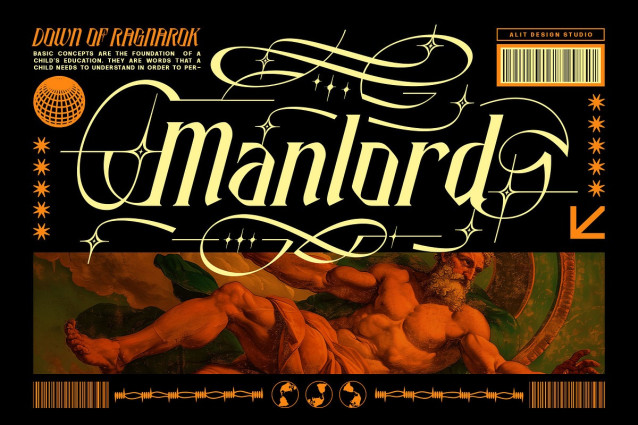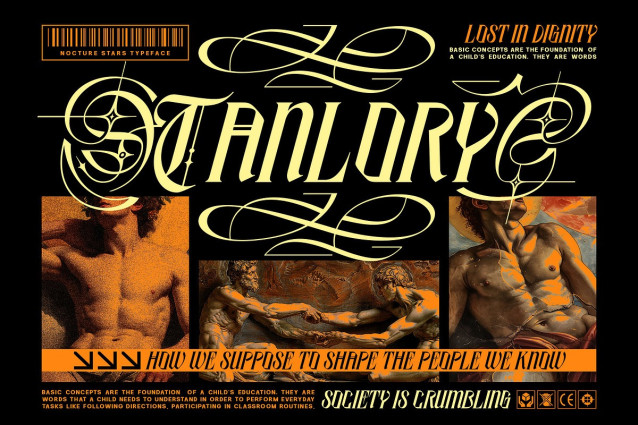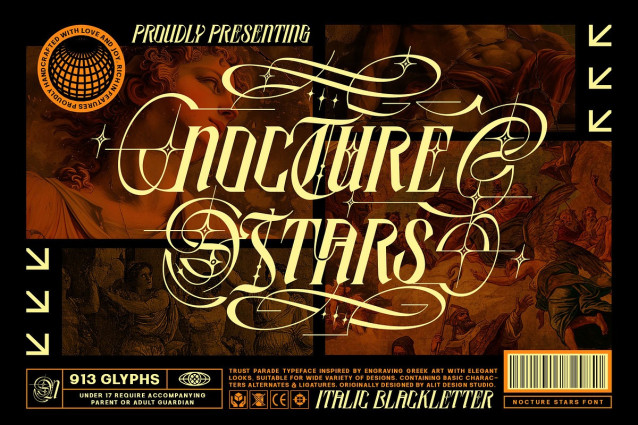
Nocture Stars Font
Nocture Stars Font a typeface that defies the boundaries of time. Inspired by the intricate precision of engraving Greek art and the dark romance of the medieval era, this font is a bold fusion of history and contemporary streetwear culture.
Nocture Stars is not just a font; it is a visual statement. It takes the rigid structure of classic Blackletter gothic scripts and injects it with a dynamic, italicized speed. The result is a “Trust Parade” typeface that feels aggressive yet elegant, sharp yet fluid—perfect for designs that demand attention.
The Design Aesthetic Nocture Stars is characterized by its sharp diamond-shaped terminals, dramatic high-contrast strokes, and a rhythmic flow that mimics the hand of a master calligrapher. It perfectly captures the trending “Acid Graphics,” “Brutalism,” and “Y2K Grunge” aesthetics while maintaining the dignity of a classic text. Whether you are designing for a metal band, a luxury streetwear brand, or an avant-garde editorial, this font delivers a mercilessly cool vibe.
Unrivaled Versatility & Features Don’t let the complex look fool you; Nocture Stars is built for professional use. With a staggering 913 Glyphs, this font offers endless possibilities for customization. You aren’t just typing; you are crafting a logo.